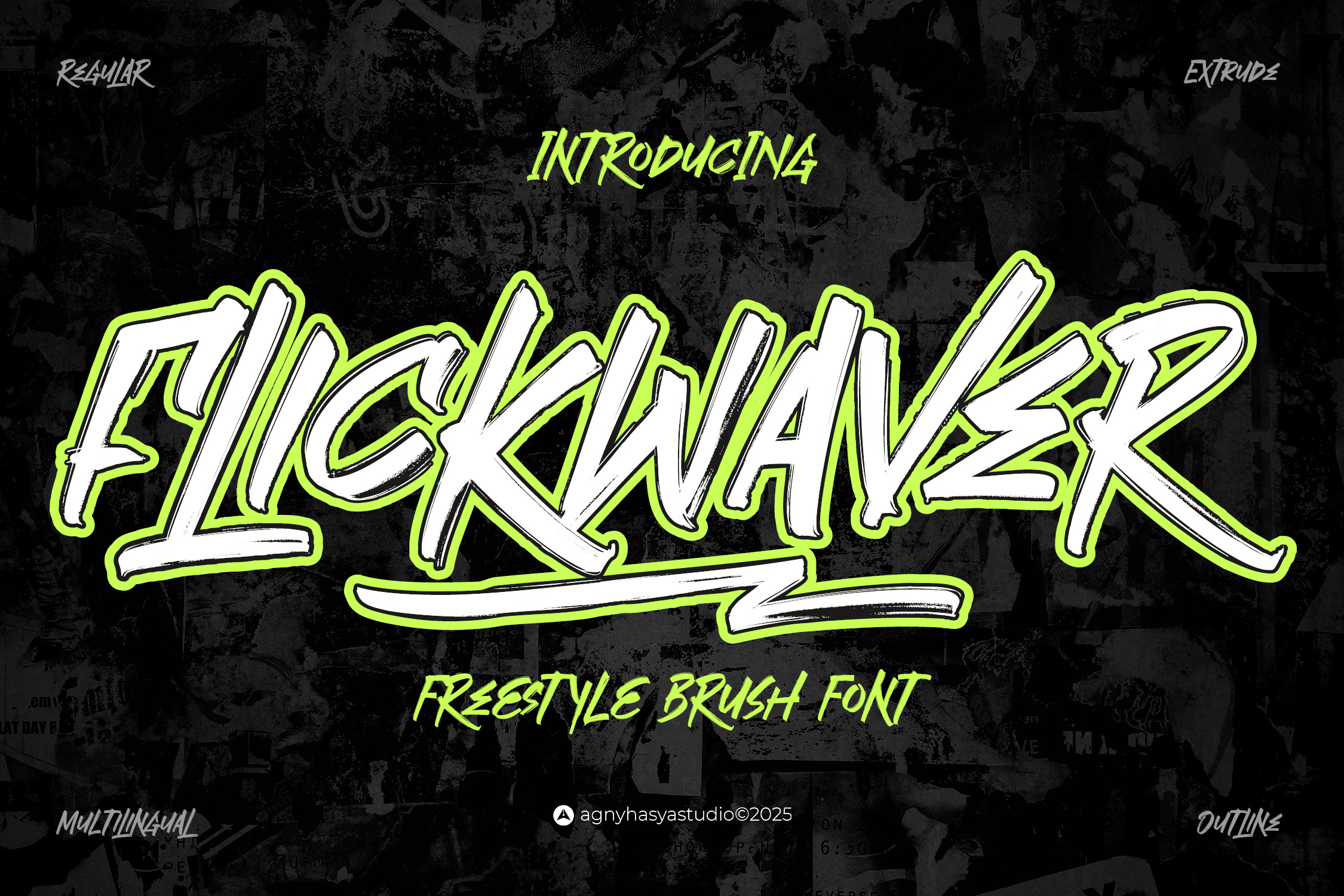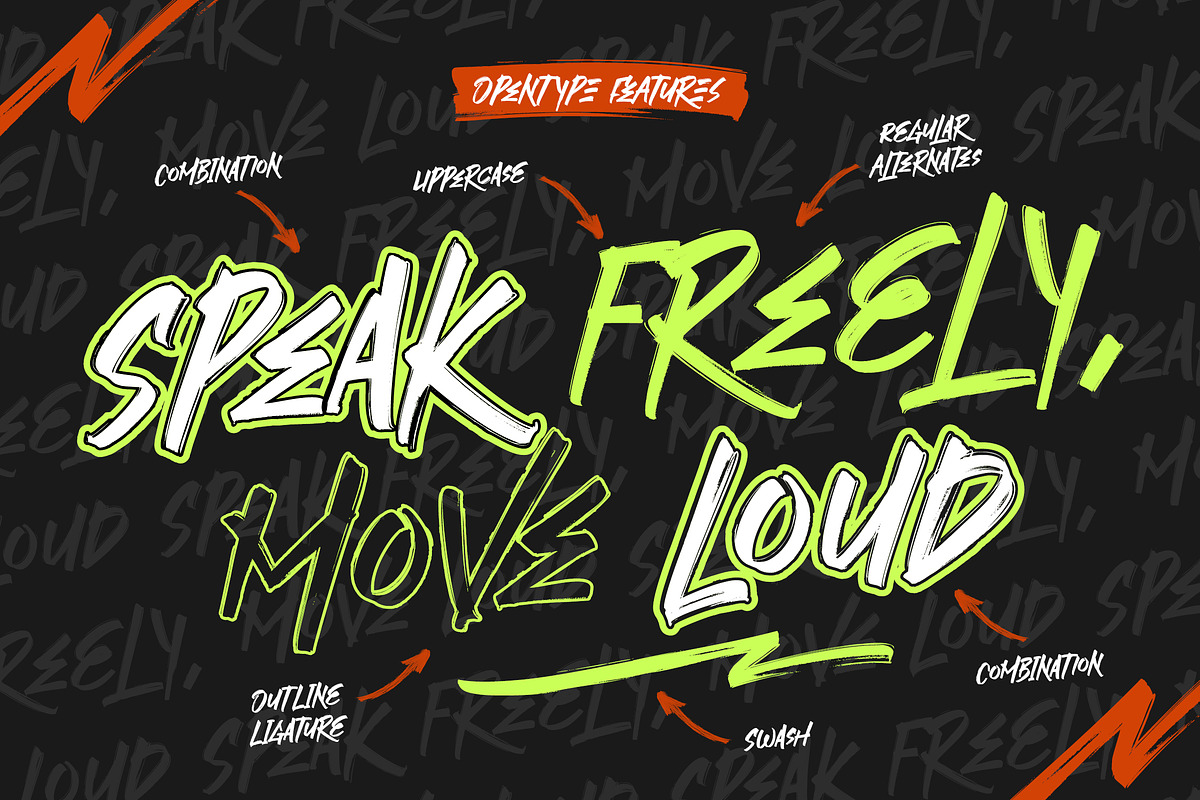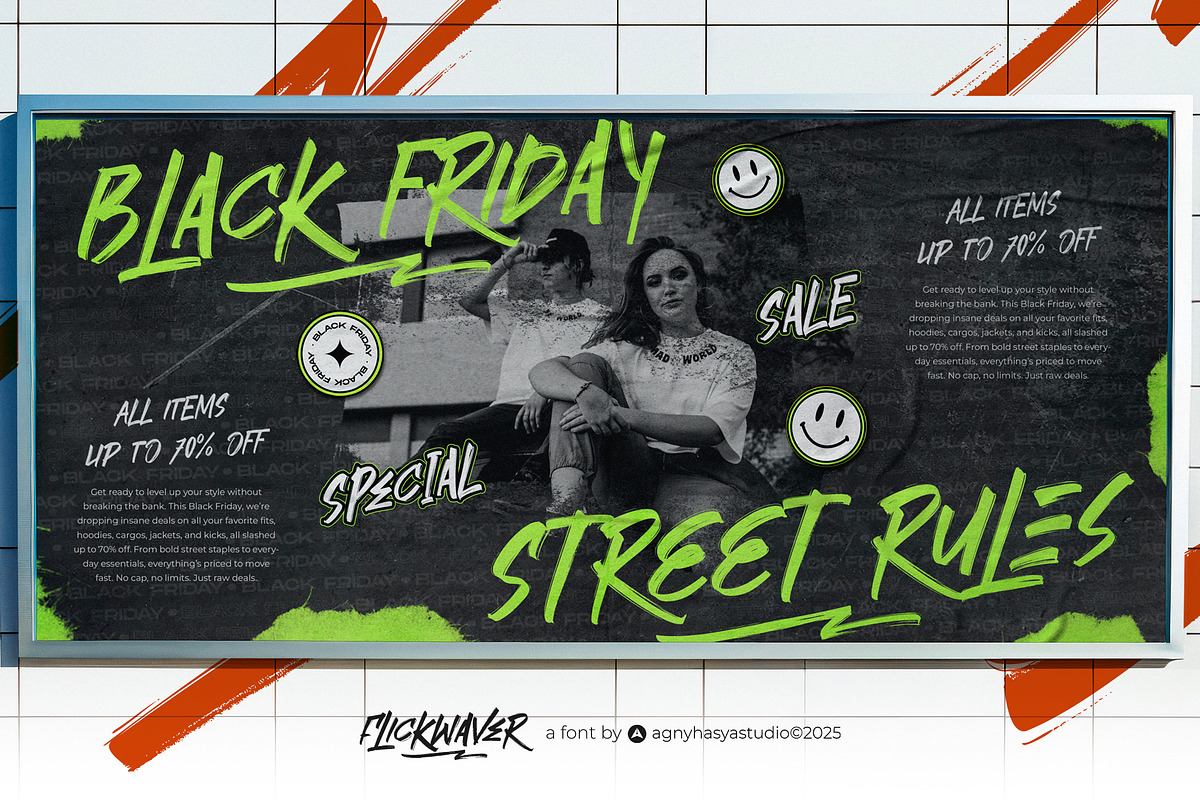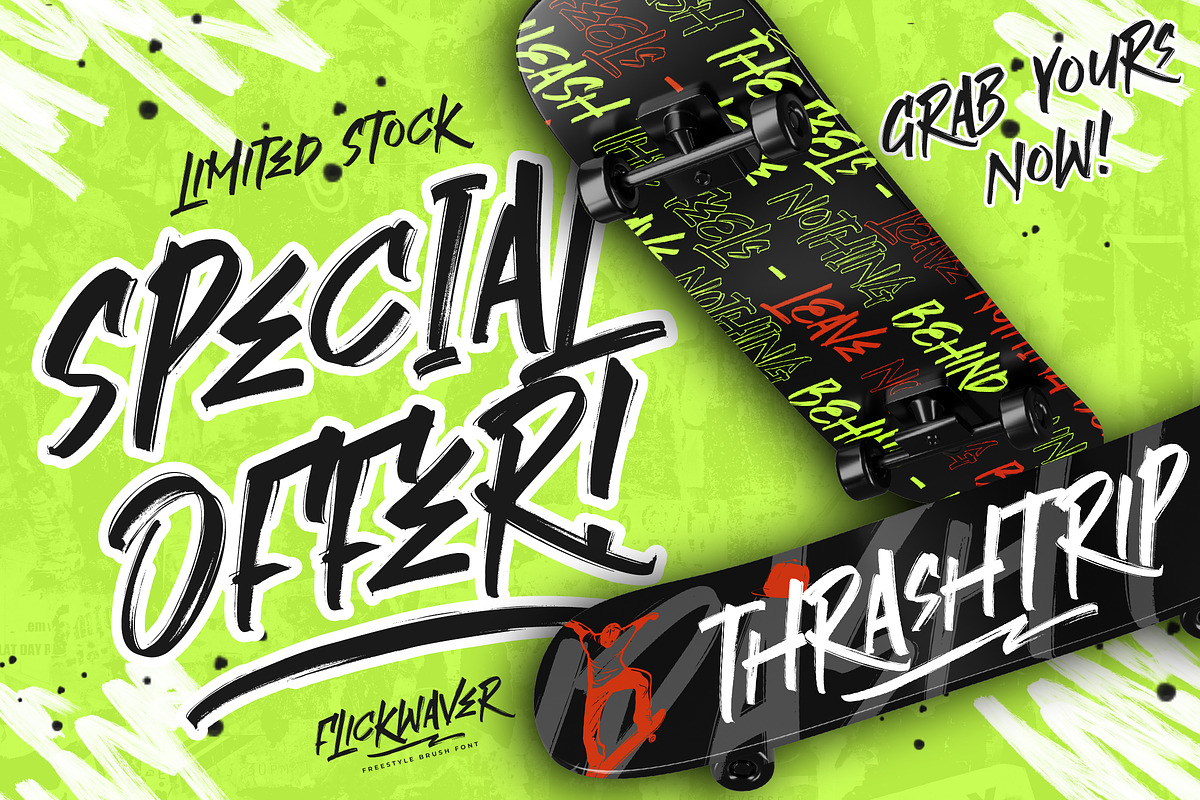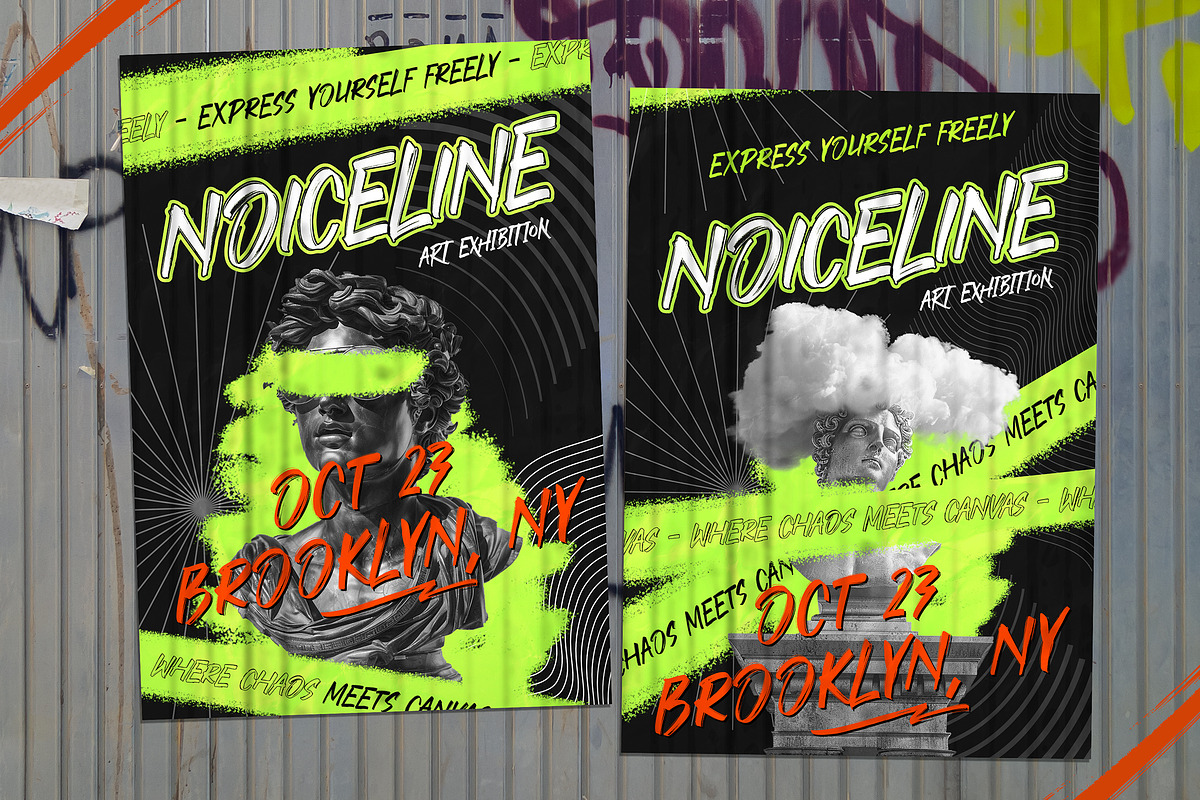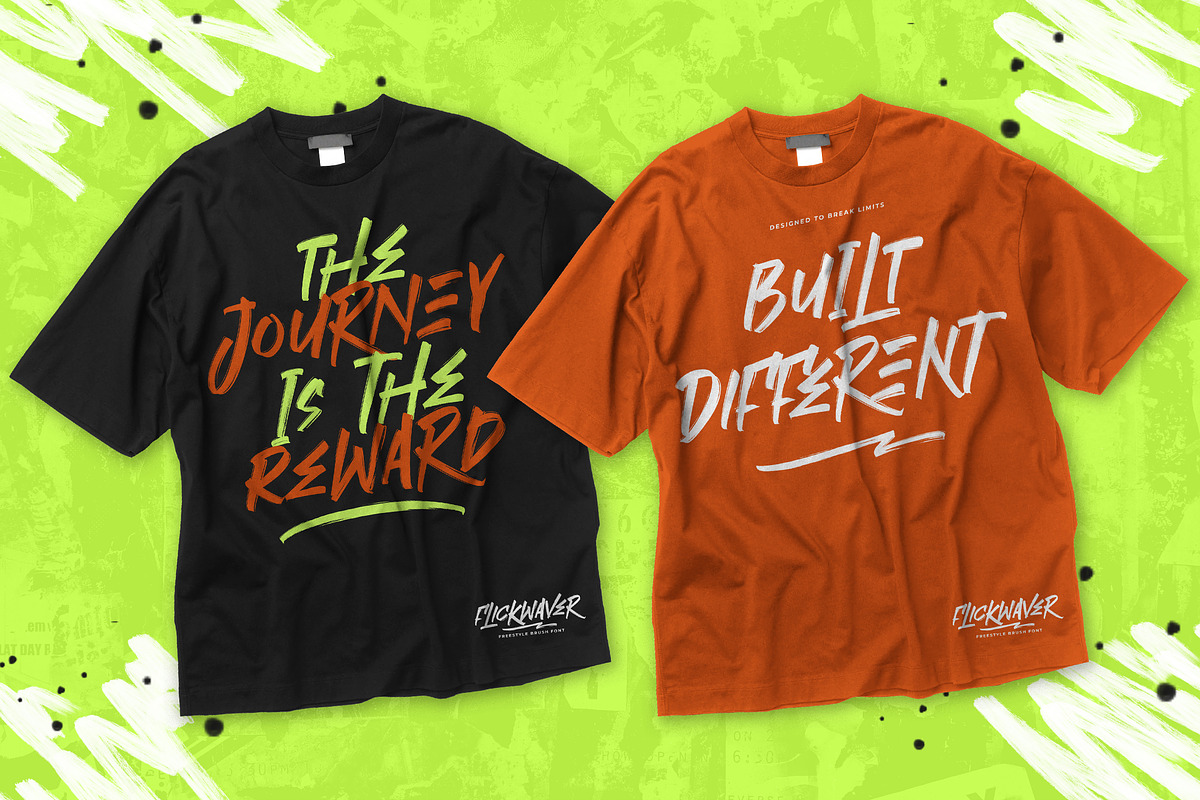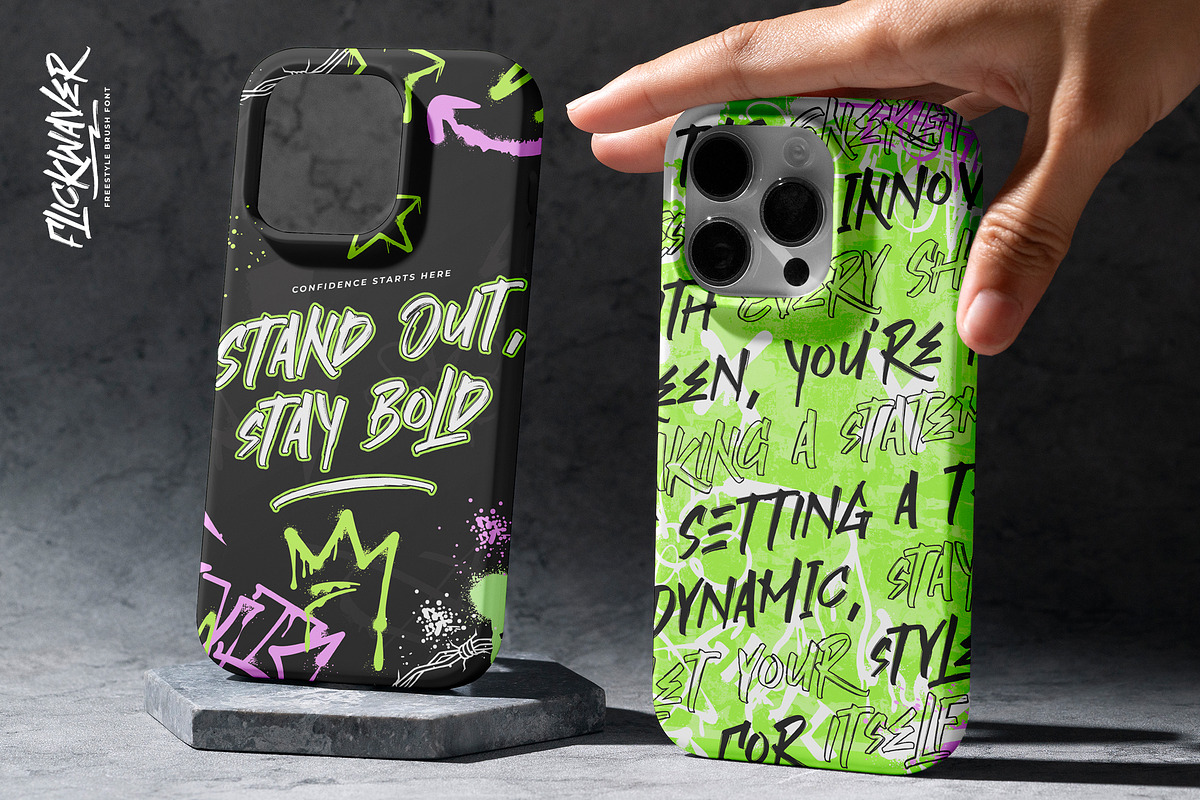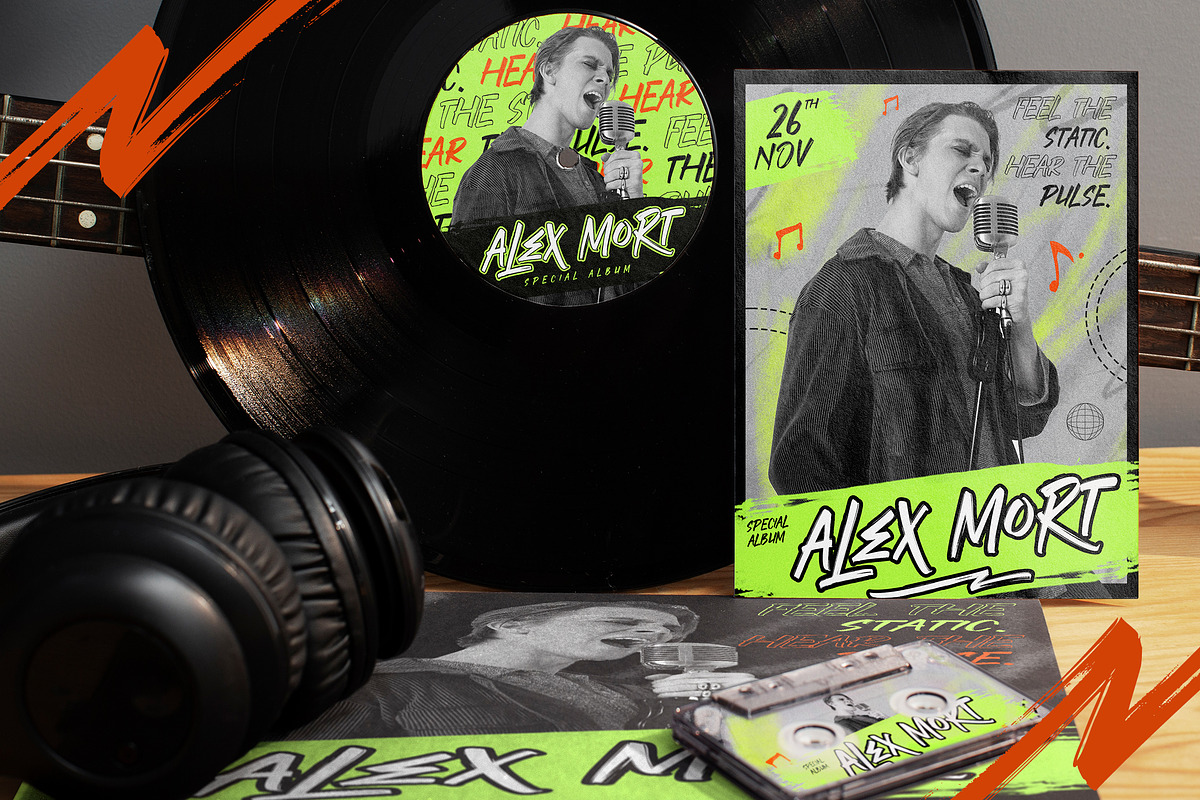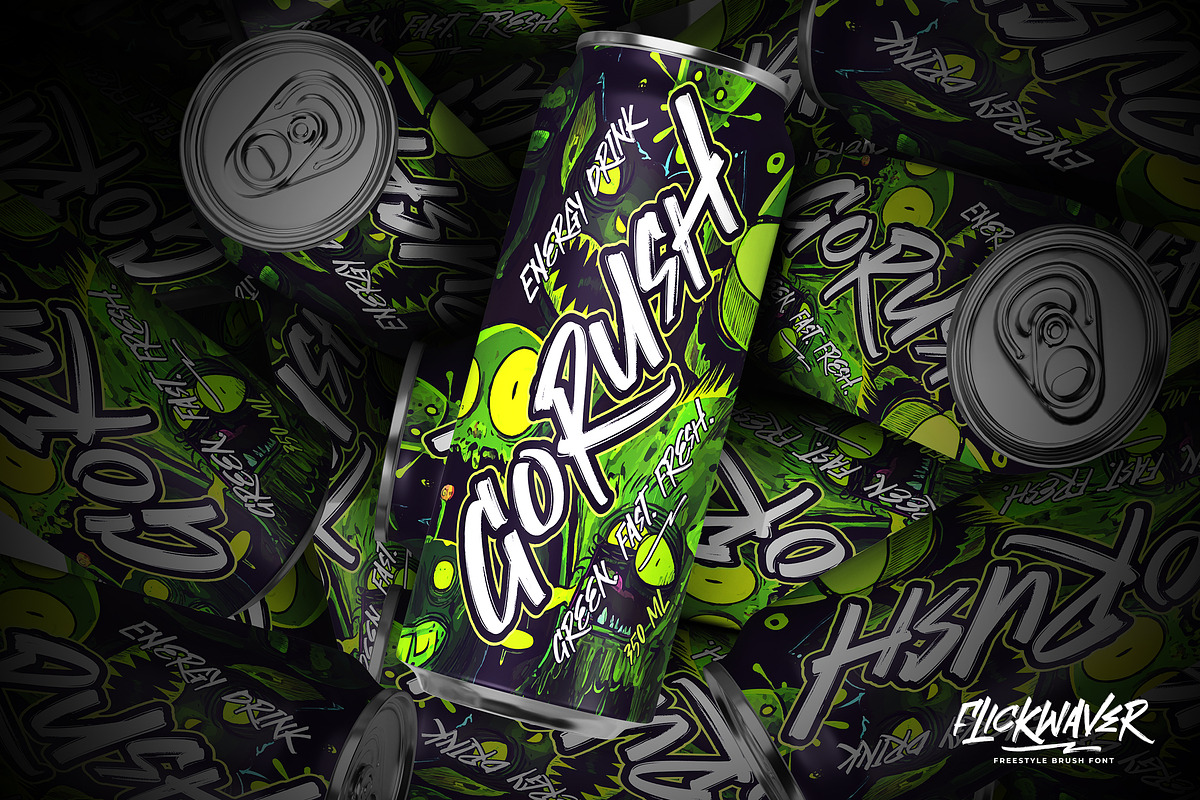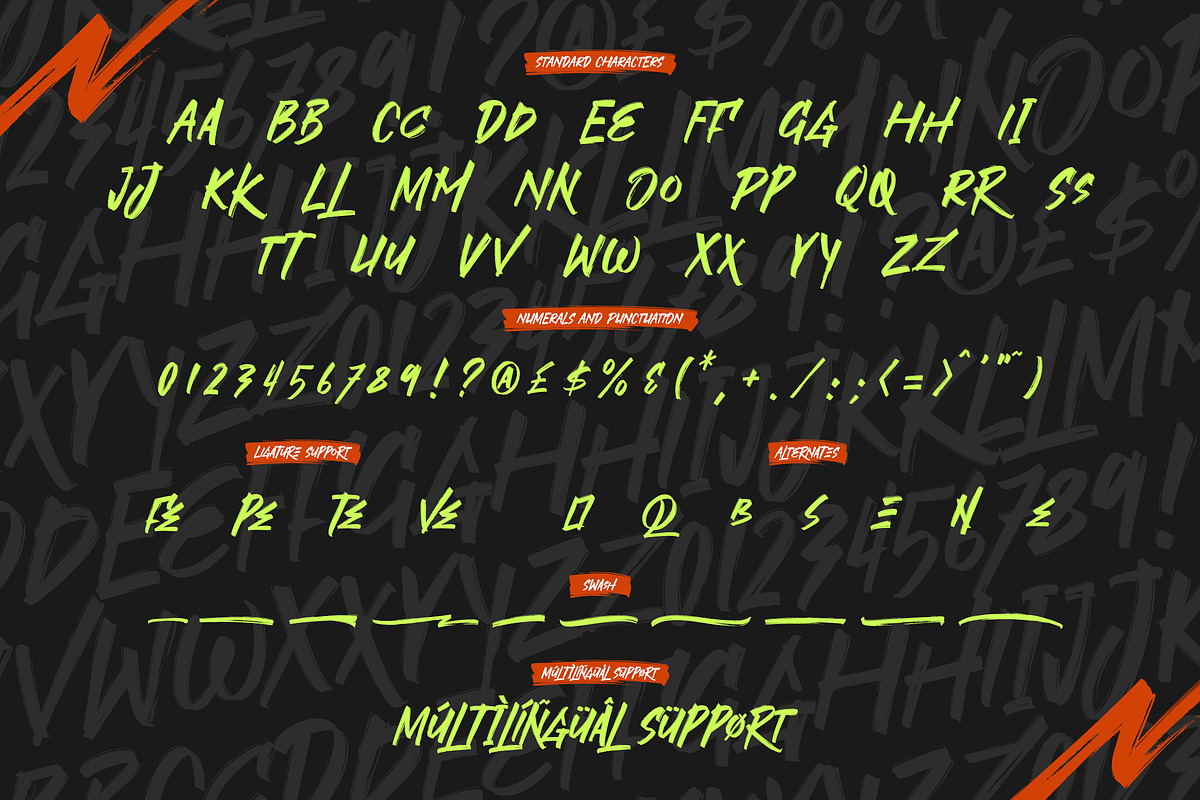
FlickWaver - Freestyle Brush Font
FlickWaver is a bold and expressive brush font inspired by the vibrant expression from the raw energy of street art and the effortless flow of hand-drawn marker lines. With a lively personality and modern flair, it’s designed to bring a punch of character to your work, whether you're aiming for edgy, urban vibes or something a bit more playful.
This font comes in three (3) versatile styles: Regular, Outline, and Extrude, giving you creative freedom to mix, layer, and experiment. Each stroke feels dynamic and handcrafted, making it a great fit for logos, apparel, branding, social posts, posters, and other creative visuals.
FlickWaver supports multilingual characters, making it ready to go global and reach a larger audience. Whatever your style, FlickWaver adds just the right amount of bold attitude and creative flow.